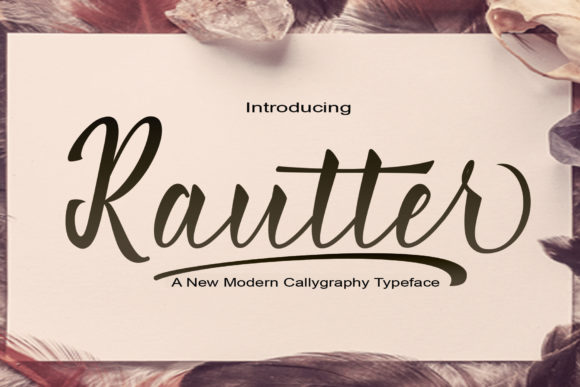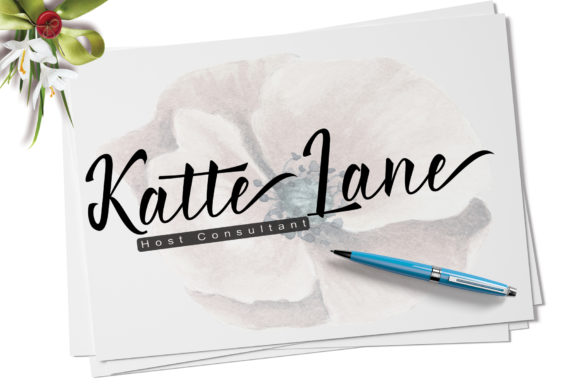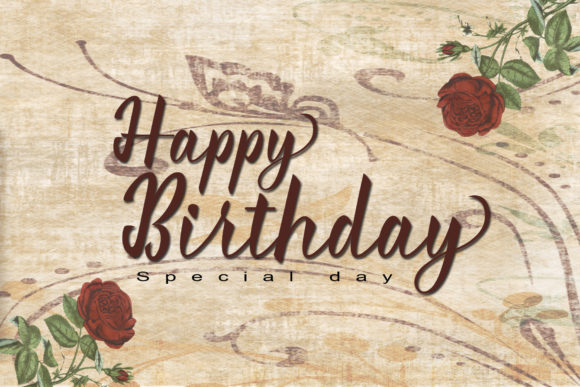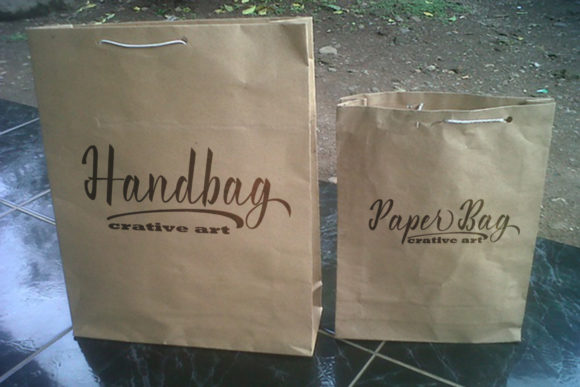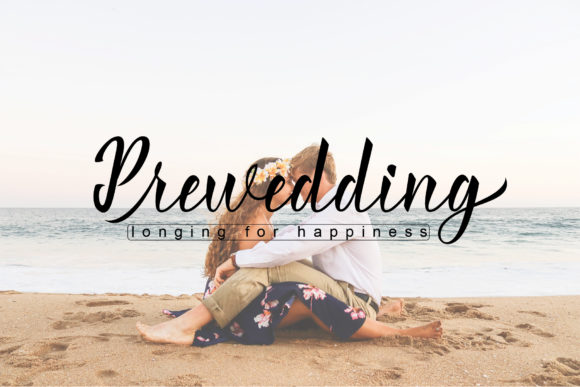
Rautter Font
About Rautter Font
Rautter is a modern and unique script font. It is perfect for headings, logos, wedding invitations, posters and much more!